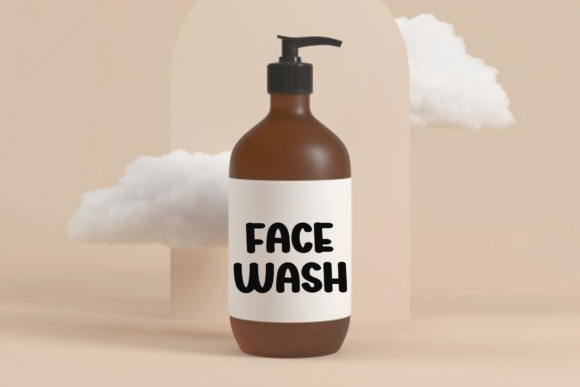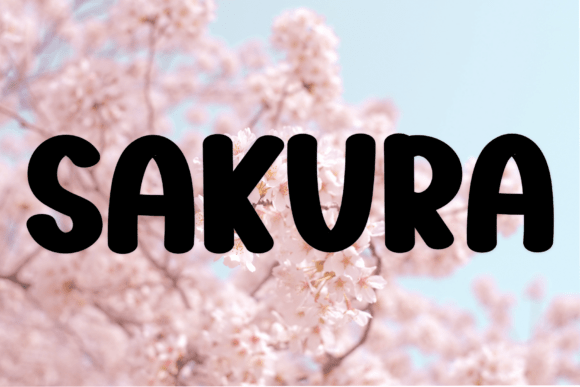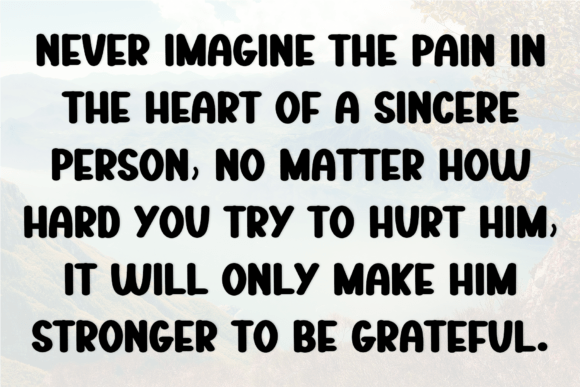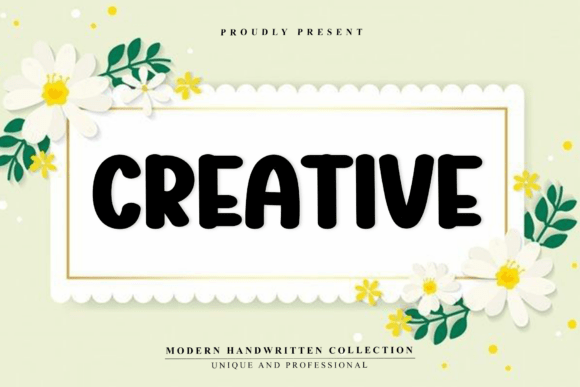
Unleash Your Creativity with Creative Font: A Bold and Friendly Typeface
In the world of design, typography plays a crucial role in conveying the tone and personality of a brand or project. When it comes to creating engaging and youthful content, a font that exudes warmth and friendliness is essential. This is where Creative Font comes in – a bold, rounded handwritten display font that embodies a playful and approachable spirit.
The Perfect Blend of Fun and Professionalism
Creative typeface is designed to make a statement with its chunky yet smooth letterforms, making it an ideal choice for kid-related content, fun branding, classroom materials, or playful packaging. The font’s modern handwritten look offers great readability, blending fun with professionalism in a versatile and user-friendly style. This makes it perfect for designers who want to inject energy and warmth into their visual communication.
Key Features of Creative Font
- Bold and Rounded Letterforms: Creative Font features chunky yet smooth letterforms that give it a unique and playful appearance.
- Youthful Spirit: The font’s design is inspired by a youthful and friendly vibe, making it perfect for kid-related content and fun branding.
- Great Readability: Despite its bold and playful design, Creative Font offers great readability, making it suitable for a wide range of applications.
- Versatile and User-Friendly: The font’s modern handwritten look and smooth letterforms make it easy to use and versatile for various design projects.
Use Cases for Creative Font
Creative Font is a fantastic choice for a variety of design projects, including:
- Kid-Related Content: The font’s playful and youthful design makes it perfect for children’s books, educational materials, and kids’ branding.
- Fun Branding: Creative Font is ideal for brands that want to convey a friendly and approachable personality, such as lifestyle, food, or entertainment brands.
- Classroom Materials: The font’s clear and readable design makes it suitable for educational materials, such as worksheets, posters, and presentations.
- Playful Packaging: Creative Font can add a playful touch to product packaging, making it stand out on store shelves.
Why Choose Creative Font?
As a designer or crafter, you want a font that can help you create engaging and effective visual communication. Here are some reasons why Creative Font stands out:
- Unique and Playful Design: Creative Font offers a fresh and playful take on traditional typography, making it perfect for designers who want to add a creative twist to their work.
- Easy to Use: The font’s user-friendly design and great readability make it easy to use for a wide range of design projects.
- Versatile: Creative Font can be used for various design applications, from digital content to print materials.
Creative Font is a bold and friendly typeface that can add a playful touch to your design projects. With its chunky yet smooth letterforms, youthful spirit, and great readability, it’s perfect for kid-related content, fun branding, classroom materials, or playful packaging. Whether you’re a designer or crafter, Creative Font is a versatile and user-friendly choice that can help you inject energy and warmth into your visual communication.